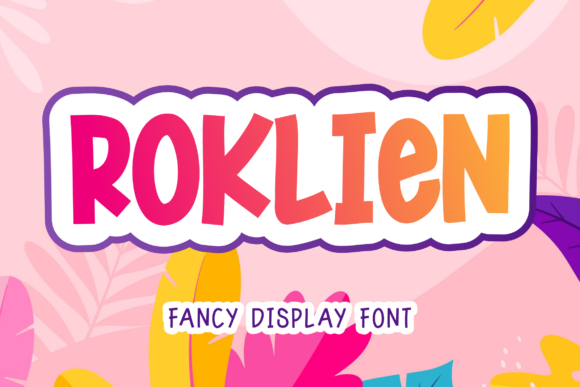
Journey into the realm of Roklien Font, a whimsical and endearing display font crafted by pandanwangi. This charming typeface exudes an air of childlike innocence and effortless readability, making it the perfect choice for adding a touch of warmth and playfulness to your creative endeavors.
With Roklien Font as your trusty companion, you'll embark on a voyage of boundless possibilities. Dive into the world of crafting, transforming ordinary materials into extraordinary works of art. Let your imagination soar as you design digital masterpieces that captivate and inspire. Craft presentations that resonate with your audience, leaving a lasting impression that lingers in their minds. Create greeting cards that overflow with heartfelt sentiments and cheerful greetings, spreading joy and cheer wherever they go.
Roklien Font is more than just a collection of letters; it's an invitation to unleash your creativity and let your imagination run wild. Its playful nature lends itself effortlessly to a myriad of applications, effortlessly enhancing the charm and appeal of your designs. Whether you're a seasoned pro or just starting your creative journey, Roklien Font is the perfect font to accompany you on this exciting adventure. Embrace its magic and watch your creations come alive with newfound vitality and charm.
So, step into the enchanting world of Roklien Font and let your creativity blossom. With its captivating allure and endless versatility, Roklien Font is the key to unlocking a world of artistic wonders. Unleash your imagination and transform your creative visions into captivating realities. The possibilities are boundless, waiting for you to explore and discover. Embrace the magic of Roklien Font and let your creativity soar to new heights!